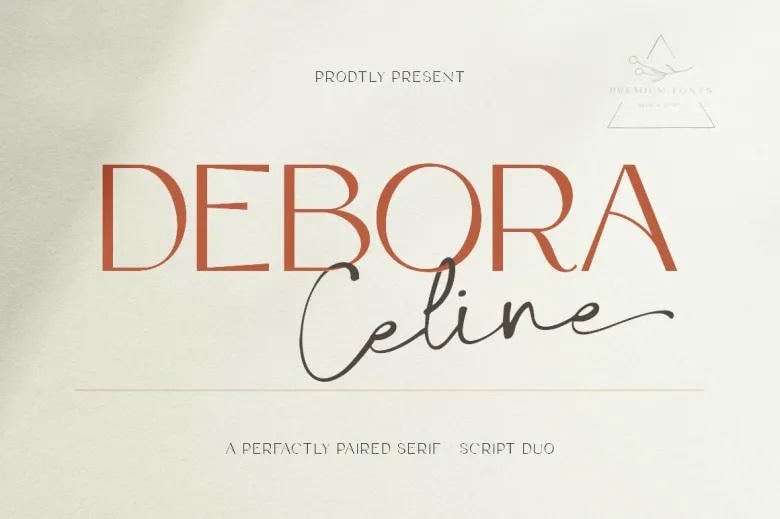
Debora Celina Font Duo
Debora Celina Font
Debora Celina is fairly simple for reading, rather curious in looking, conformed of Duo Script and Serif fonts, and also rather flexible to be used on number of different tops – Valentines cards, Christmas decorations, invitations to weddings, posters for advertising branding posts in Face book as well as to creates covers for magazines and many other things are some of numerous examples. Debora Celina is here to bring more playfulness, development of warm touch and playfully formal aesthetics to each project!
Debora Celina Font Duo